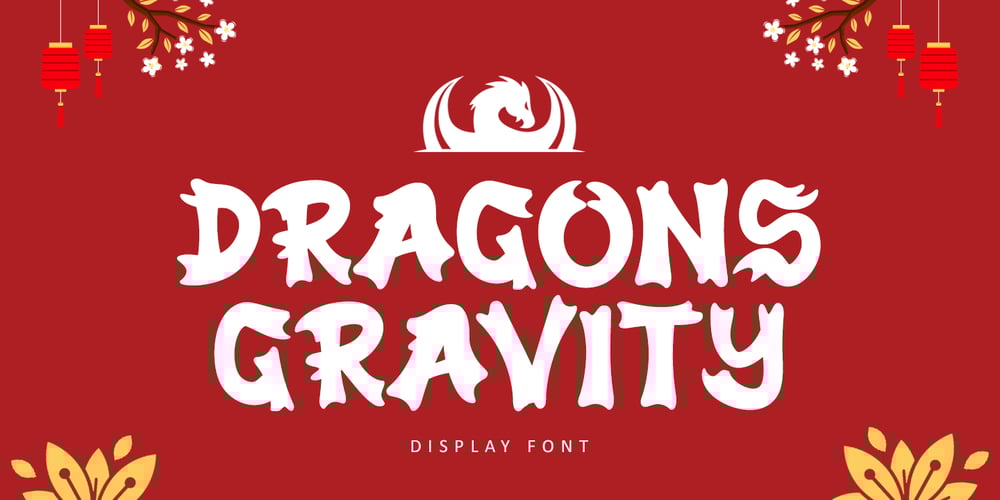
Dragons Gravity
Dragons Gravity font
Dragons Gravity Font Family was designed by Bayu Suwirya and published by Illushvara. Dragons Gravity contains 1 styles and family package options. Hello,Happy to share our new fonts “Dragons Gravity” is a display font mix with a chinese color, consept like a dragons shape. It is ideal for Chinese gift, cards or invitation, film layout motorcycle, branding, quote, more product designs with your best styled.Features : Uppercase and lowercase Numbers Punctuation Multilingual Accent What you get :Dragons Gravity. OTFIf you have any question, don’t hesitate to contact me. Happy Designing !!!Thank You,Bayu Suwirya